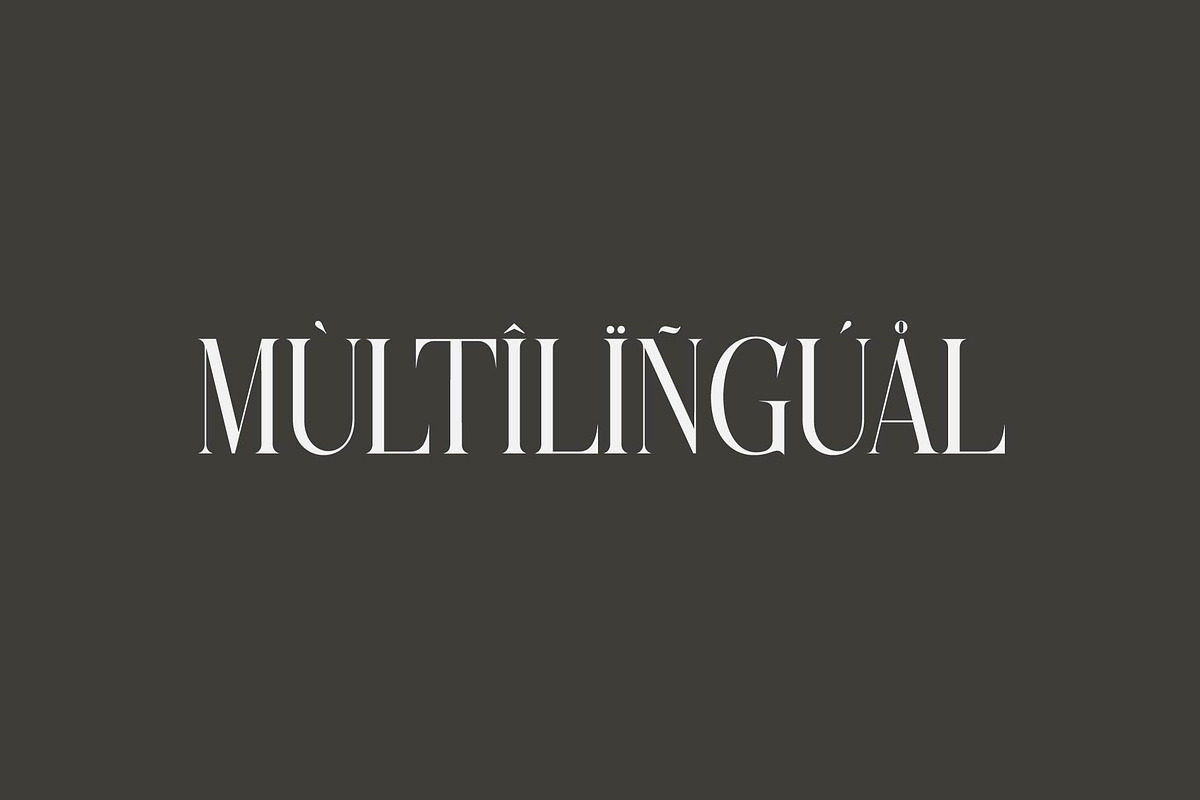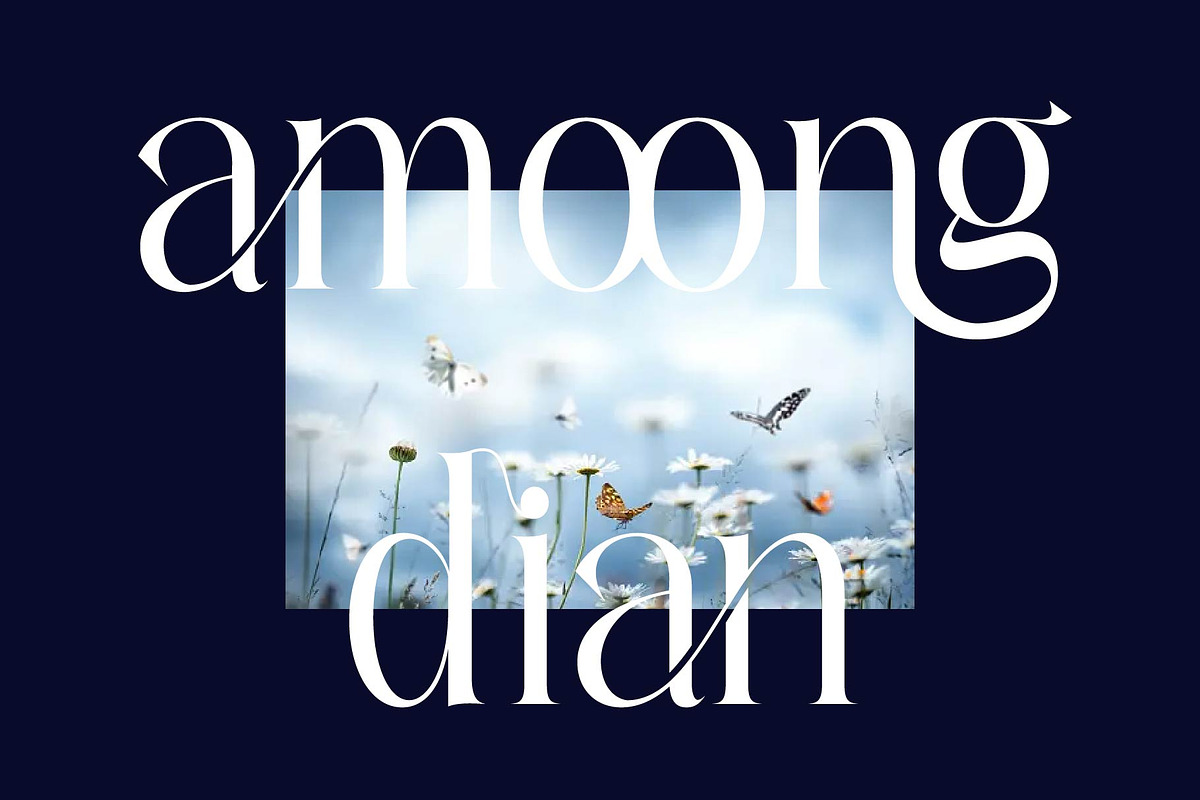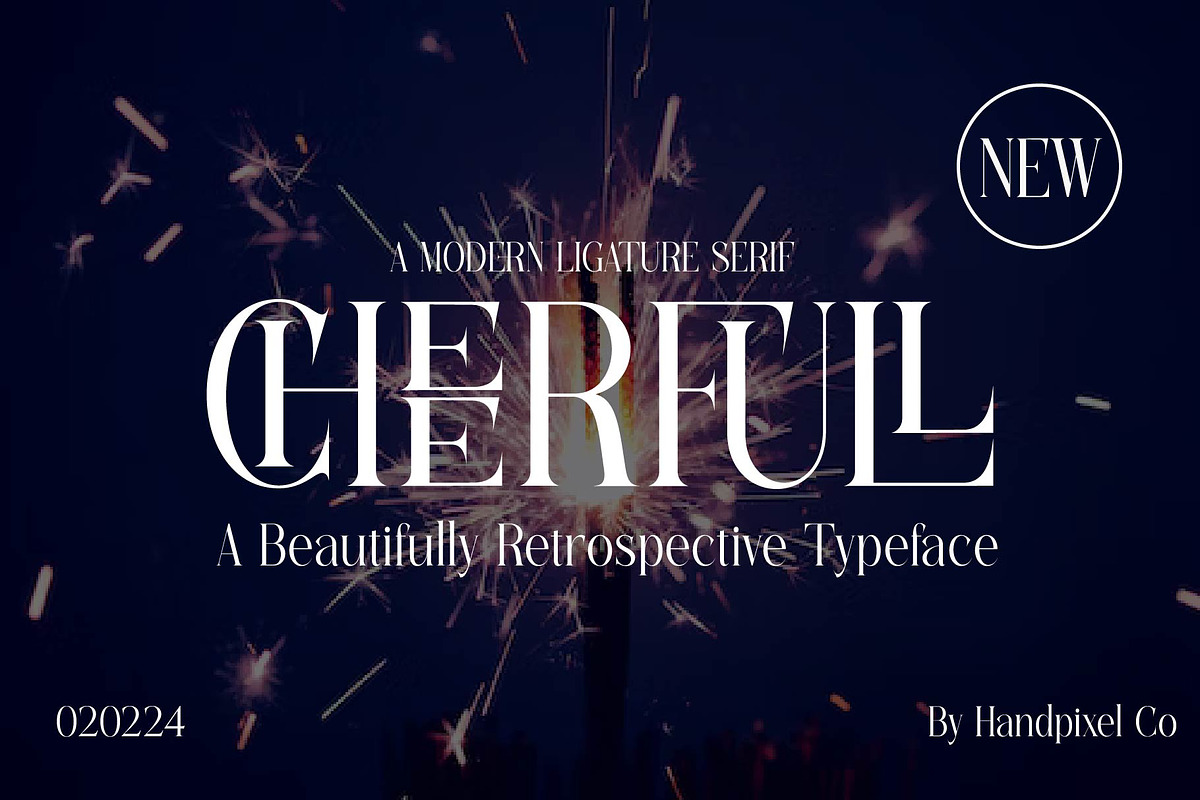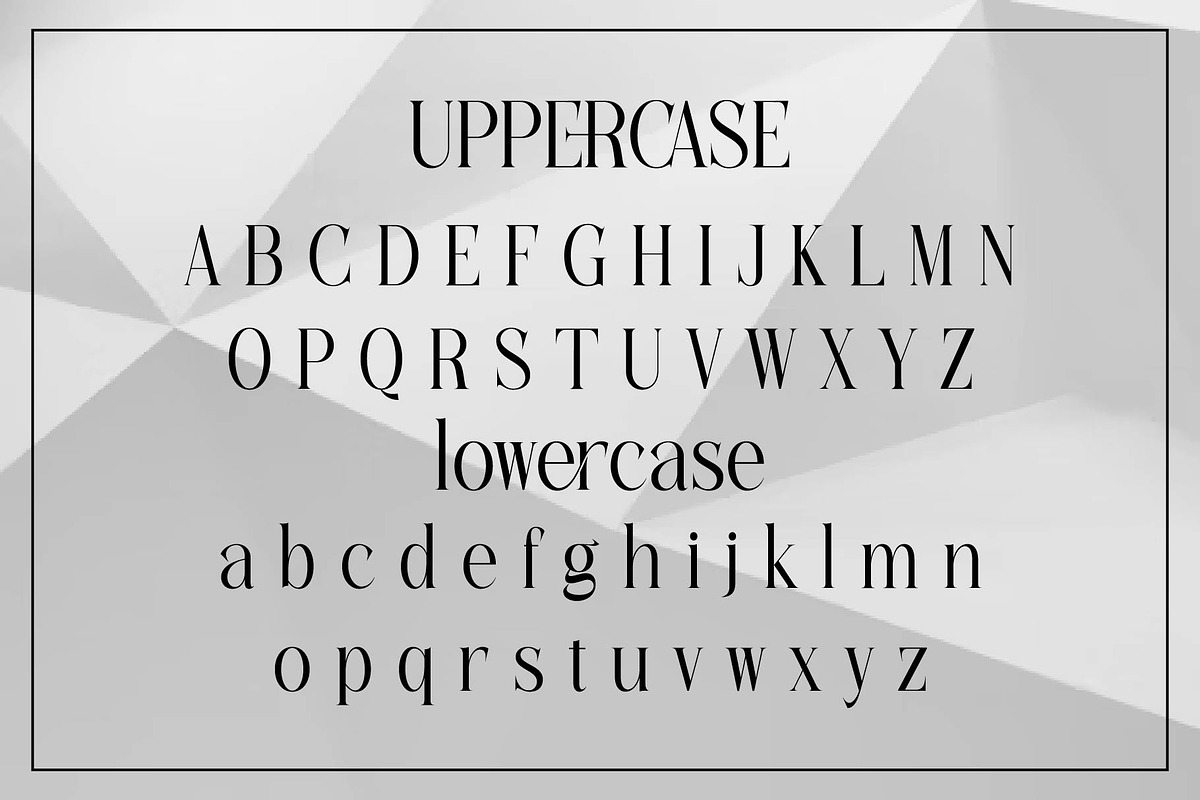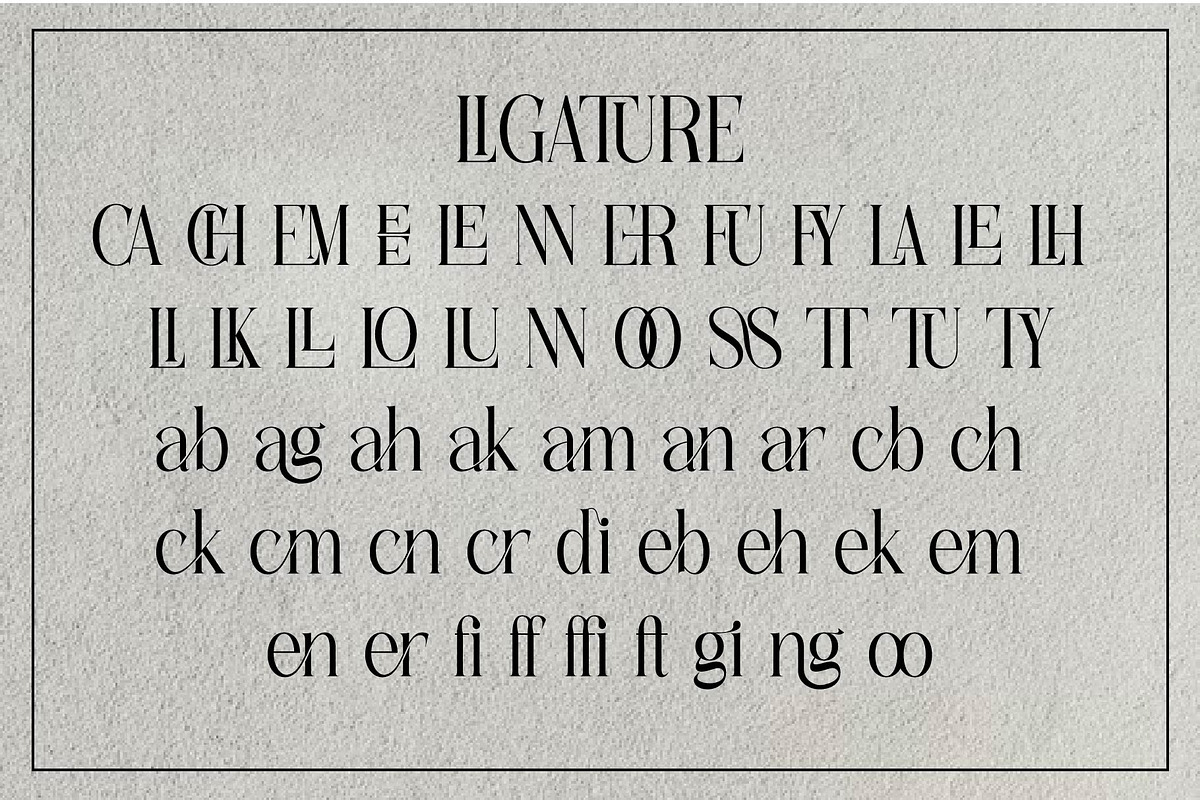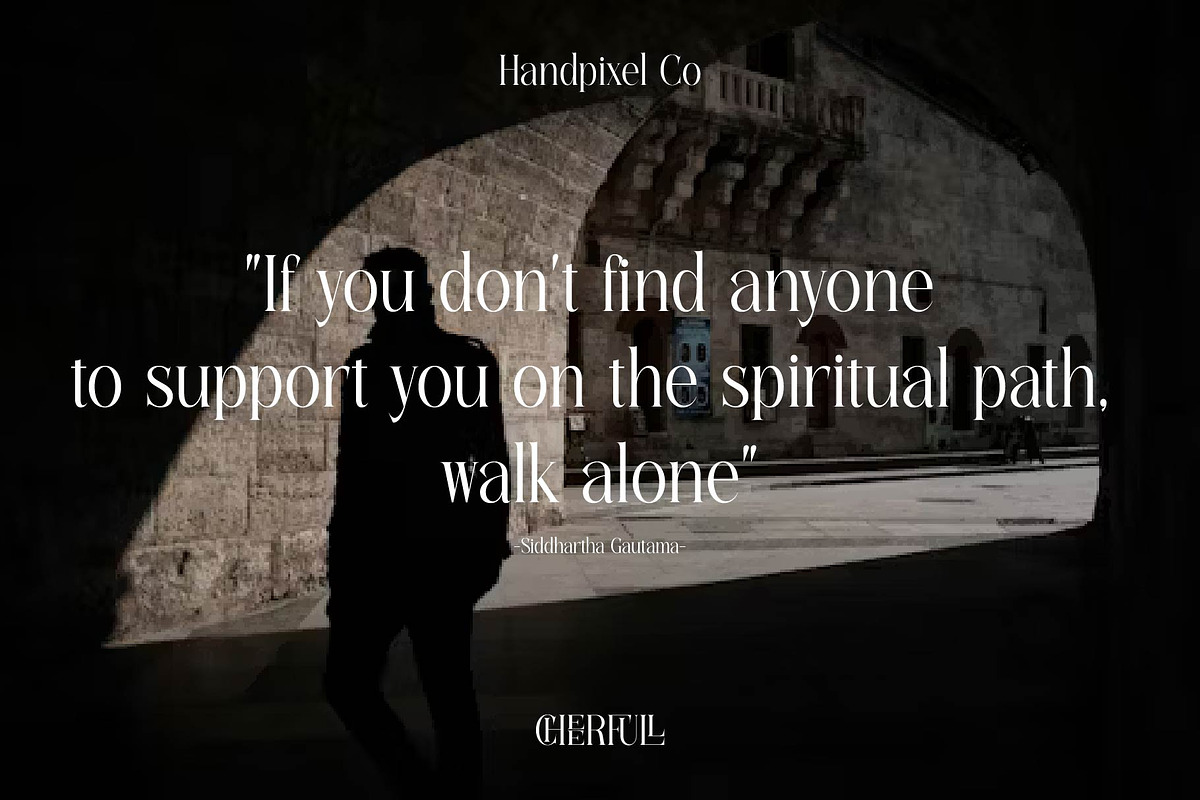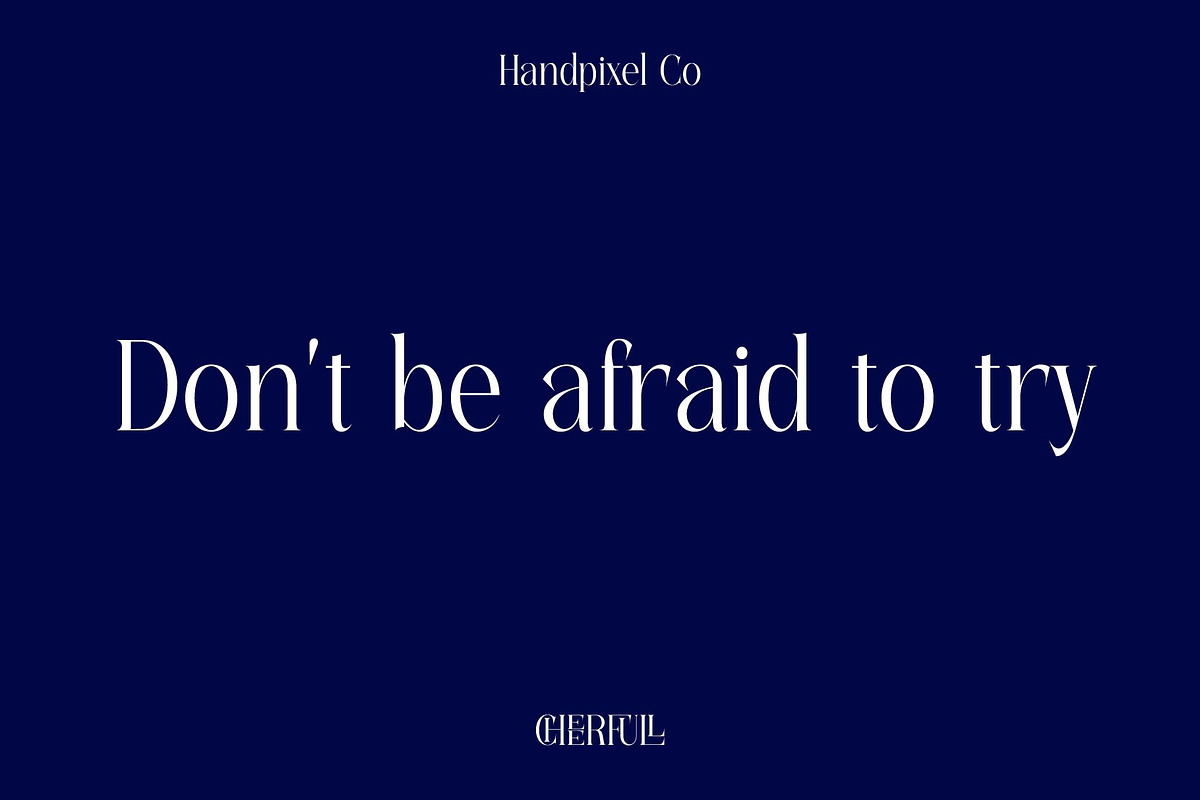
cheerfull
cheerfull- a stylish OpenType rich serif with letters that seem to dance and twist harmoniously together - to form unique & elegant typography designs.
A large selection of interwoven Opentype ligatures and alternates means ample selection and variety in your finished look.